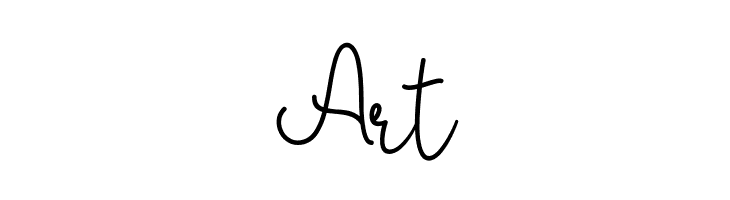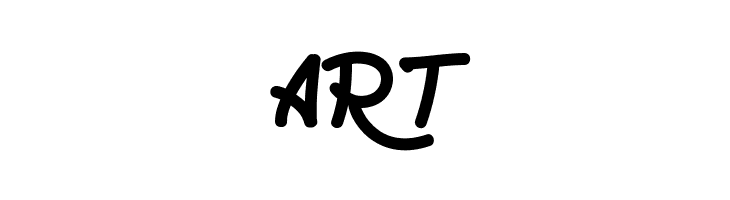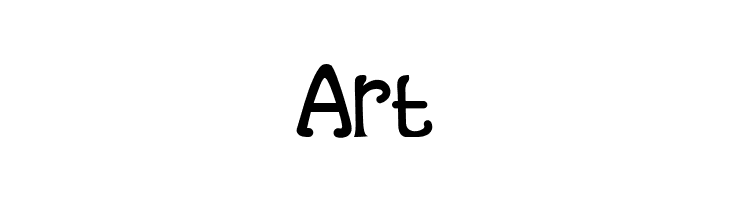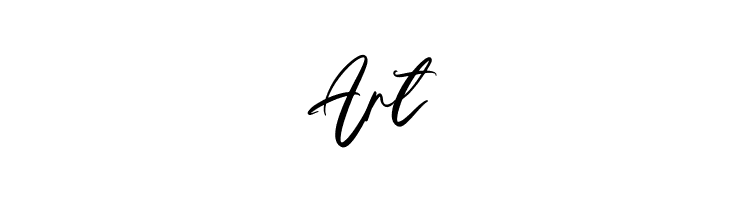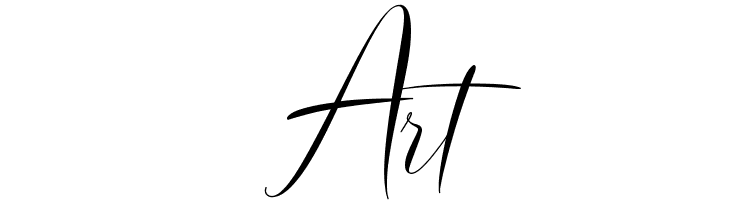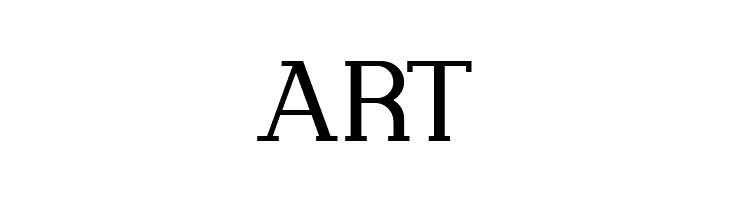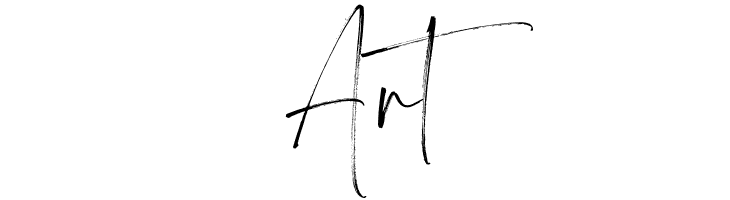
A flowing, cursive font with elegant loops and artistic flourishes.
Expressive, casual handwritten script with tall, flowing letters.
A playful and elegant handwritten script font with flowing, connected letters.
A playful, bold, handwritten-style font with rounded, flowing characters.
A classic serif font with modern elegance and balanced proportions.
A graceful script font with flowing, interconnected letters and a sophisticated style.
A playful, hand-drawn font with rounded edges and a whimsical style.
An elegant script font with flowing, graceful curves and sophisticated flair.
A cursive script font with elegant, flowing strokes and decorative flourishes.
A bold, jagged font with a retro, sci-fi aesthetic and dynamic energy.